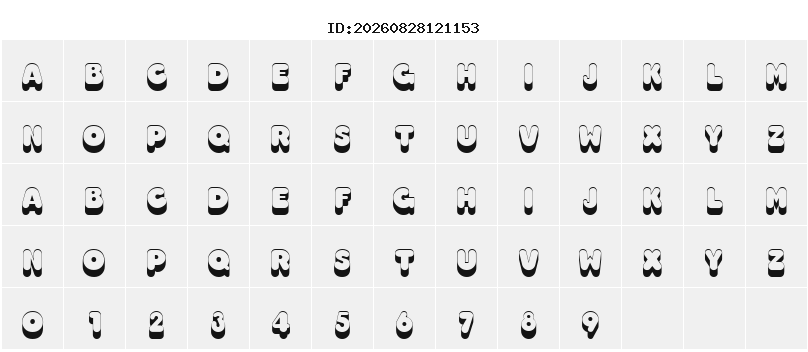
• Font Name: Too
• Full Font Name: Too Regular
About Too.ttf
Too.ttf is a modern, elegant sans-serif font designed for ultimate readability and visual harmony. Perfect for branding, headlines, web design, and print materials.